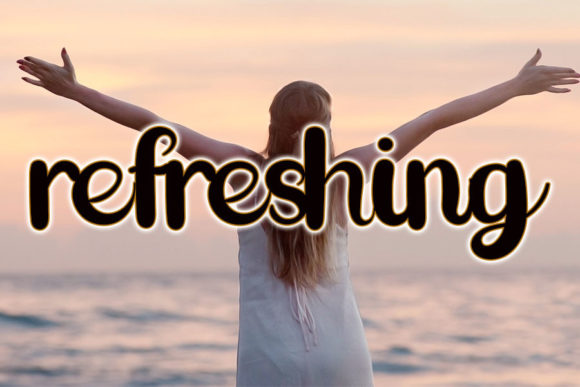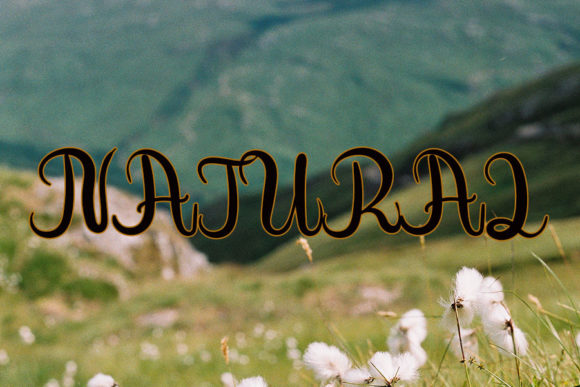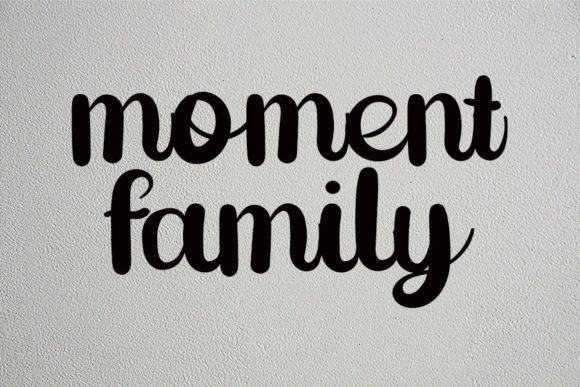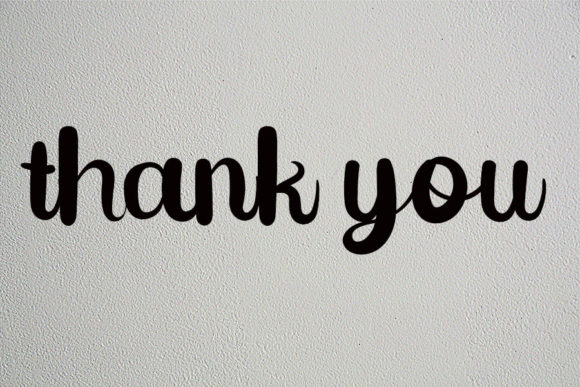
The Perfect Font for Your Creative Masterpiece
Have you ever stared at a blank canvas, waiting for inspiration to strike? Maybe it was a midnight brainstorming session, a flash of creativity on your morning commute, or a burst of inspiration while scrolling through your favorite design blogs. Whatever the moment, it’s that spark that drives us to create something truly unique and beautiful.
When that spark hits, it’s essential to have the right tools to bring your vision to life. That’s where the Almond Nut Font comes in – a stunning, handwritten font that adds a touch of elegance to any design. Whether you’re crafting a bespoke Instagram post, a wedding invitation, or a DIY project, this font will help you turn your creative idea into a work of art. For designers, the Almond Nut Font is a valuable asset, offering a versatile and stylish solution for any project.
Almond Nut Font Key Features
- Font Size: The font size of Almond Nut Font is available in 5 weights, ranging from Thin (100) to Black (900), providing flexibility for various design applications.
- Resolution: The font is optimized for high-resolution displays, making it ideal for use in digital media, such as websites, mobile apps, and e-books.
- Unique Characteristics: Almond Nut Font features a distinctive, hand-drawn aesthetic with subtle imperfections, giving it a warm and inviting feel.
- Language Support: The font includes comprehensive language support, covering Latin, Cyrillic, and Greek alphabets, as well as many non-Latin scripts, making it suitable for global design projects.
- Scalability: Almond Nut Font is designed to be highly scalable, maintaining its legibility and visual appeal at various font sizes and resolutions.
Almond Nut Font Review
Overall, I think the Almond Nut Font has a lot of potential, but like any font, it has its strengths and weaknesses. Let’s dive in!
- Unique Style: The Almond Nut Font has a distinctive, modern style that sets it apart from more traditional fonts.
- Legibility: It’s surprisingly easy to read, especially at smaller sizes.
- Customizability: The font offers a range of weights and styles, making it versatile for various design applications.
- Lack of Expressiveness: While the font has a unique style, it may not be expressive enough for certain design projects that require more emotional depth.
- Slightly Overused: The Almond Nut Font has gained popularity, which means it may start to feel overused if used too frequently.
While the Almond Nut Font has its limitations, I think it’s a solid choice for designers looking for a modern, easy-to-read font. With a bit of creativity and restraint, it can be a great addition to your design toolkit.
Almond Nut Font Practical Application Guide
For best results, use Almond Nut Font for titles and headings, and pair it with a clean sans-serif font for body text.
Almond Nut Font is perfect for:
– Creating a vintage or distressed look for titles and headings.
– Adding a touch of elegance to wedding invitations or stationery.
– Creating a unique and eye-catching design for social media graphics or posters.